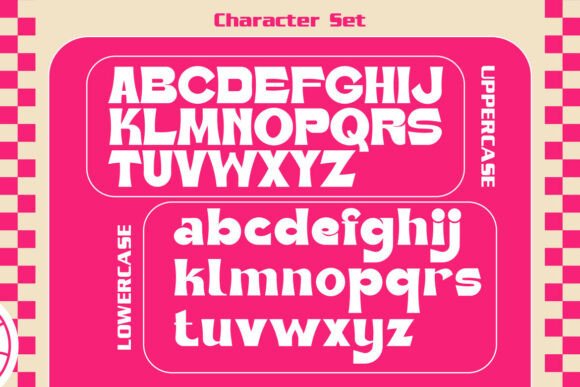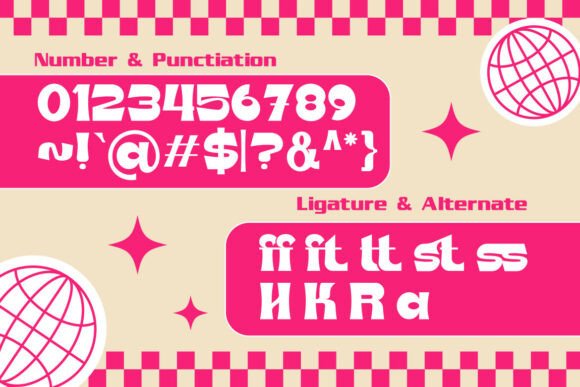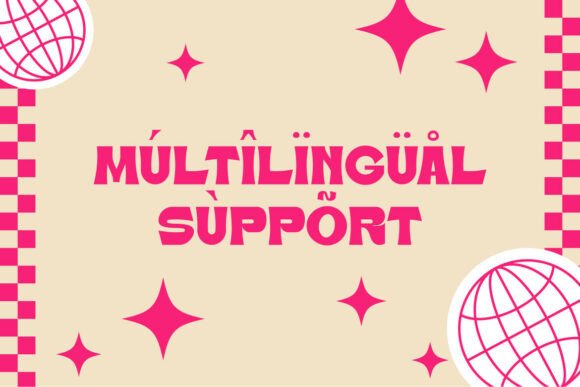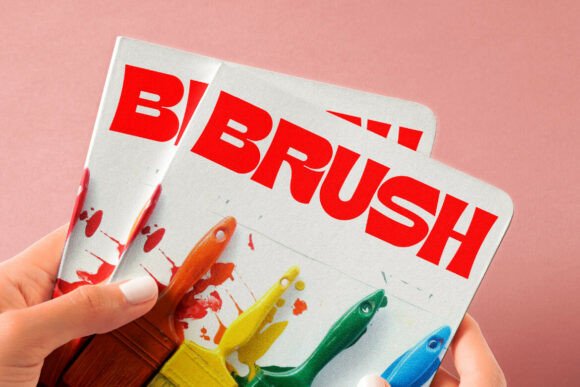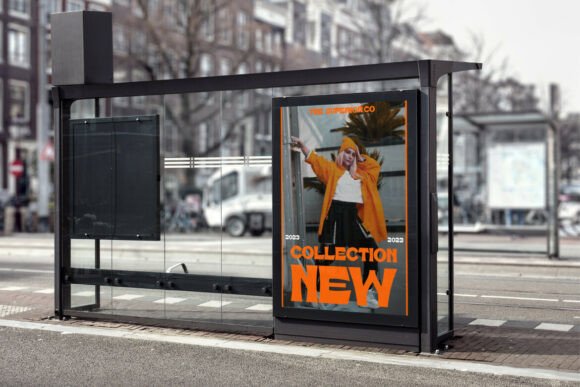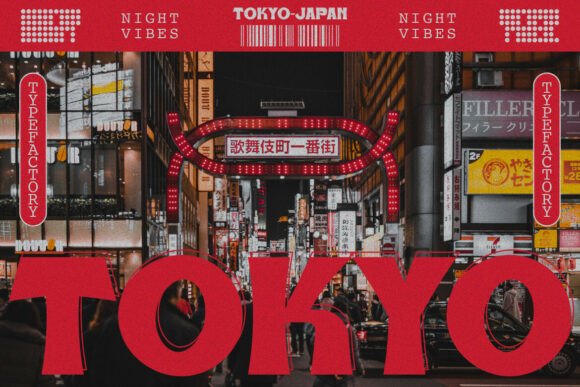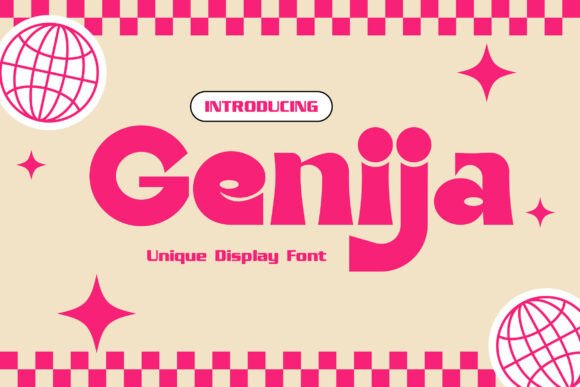
Introducing Genija Font: The Groovy Display Typeface That’s Making Waves
Are you tired of using the same old fonts for your design projects? Look no further! Genija Font is here to shake things up with its unique blend of retro pop culture and bold typographic styles. This stunning display typeface is perfect for designers and crafters looking to add a touch of personality and whimsy to their work.
The Inspiration Behind Genija
Genija Font is inspired by the fun and playful vibe of retro pop culture. Its chunky letterforms, soft curves, and playful proportions are reminiscent of classic posters, street advertisements, and fashion campaigns from the past. The font’s bold and eye-catching design makes it perfect for grabbing attention and making a statement.
What Makes Genija So Special?
So, what sets Genija apart from other fonts? Here are just a few of its standout features:
• Chunky letterforms: Genija’s letters are bold and chunky, making them perfect for large-format compositions.
• Soft curves: The font’s soft curves add a touch of playfulness and whimsy to its design.
• Playful proportions: Genija’s proportions are carefully crafted to create a strong visual impact.
• Multilingual support: Genija includes multilingual support, making it perfect for designers working on international projects.
• Alternate characters and ligatures: The font includes alternate characters and ligatures, giving designers even more creative freedom.
Genija Font is incredibly versatile and can be used for a wide range of design projects, including:
• Posters: Genija’s bold and eye-catching design makes it perfect for posters and large-format prints.
• Street advertisements: The font’s chunky letterforms and playful proportions make it ideal for street advertisements and outdoor signage.
• Fashion campaigns: Genija’s stylish and sophisticated design makes it perfect for fashion campaigns and editorial spreads.
• Merchandise: The font’s bold and playful design makes it perfect for merchandise, such as t-shirts, hats, and tote bags.
• Packaging design: Genija’s unique design makes it perfect for packaging design, adding a touch of personality to product labels and packaging.
• Music artwork: The font’s bold and eye-catching design makes it perfect for music artwork, such as album covers and concert posters.
• Social media content: Genija’s playful and attention-grabbing design makes it perfect for social media content, such as graphics, ads, and promotional materials.
Optimized for Headlines, Titles, and Large-Format Compositions
Genija Font is optimized for headlines, titles, and large-format compositions where character and personality are essential. Its bold and eye-catching design makes it perfect for grabbing attention and making a statement. Whether you’re working on a poster, a billboard, or a social media graphic, Genija is sure to turn heads.
Get Creative with Genija
With Genija Font, the creative possibilities are endless! Here are a few ideas to get you started:
• Experiment with different colors and textures: Genija’s bold design makes it perfect for experimenting with different colors and textures.
• Mix and match with other fonts: Genija pairs perfectly with other fonts, so don’t be afraid to get creative and try out different combinations.
• Add some personality with alternate characters: Genija’s alternate characters and ligatures give you even more creative freedom to add personality to your designs.
Font Name Genija Font
Author TypeFactory
Genija Font is a game-changing display typeface that’s perfect for designers and crafters looking to add a touch of personality and whimsy to their work. Its bold and eye-catching design makes it perfect for a wide range of design projects, from posters and street advertisements to fashion campaigns and social media content. With its chunky letterforms, soft curves, and playful proportions, Genija is sure to turn heads and make a statement. So why wait? Get creative with Genija Font today!